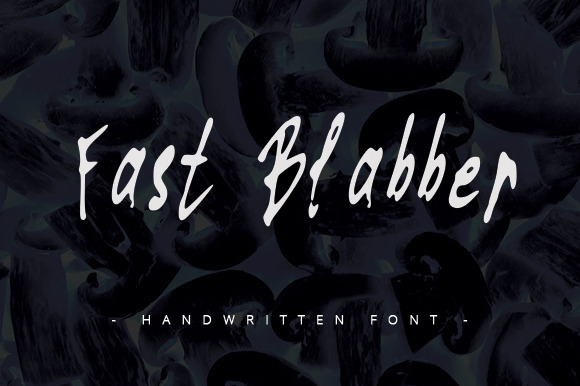
Fast Blabber ~ Handwritten Font ~
Fast Blabber - Handwritten font
Handwritten font with a casual, freehand style.
Suitable for greeting cards, branding materials, business cards, quotes, posters, packaging, logos, etc.